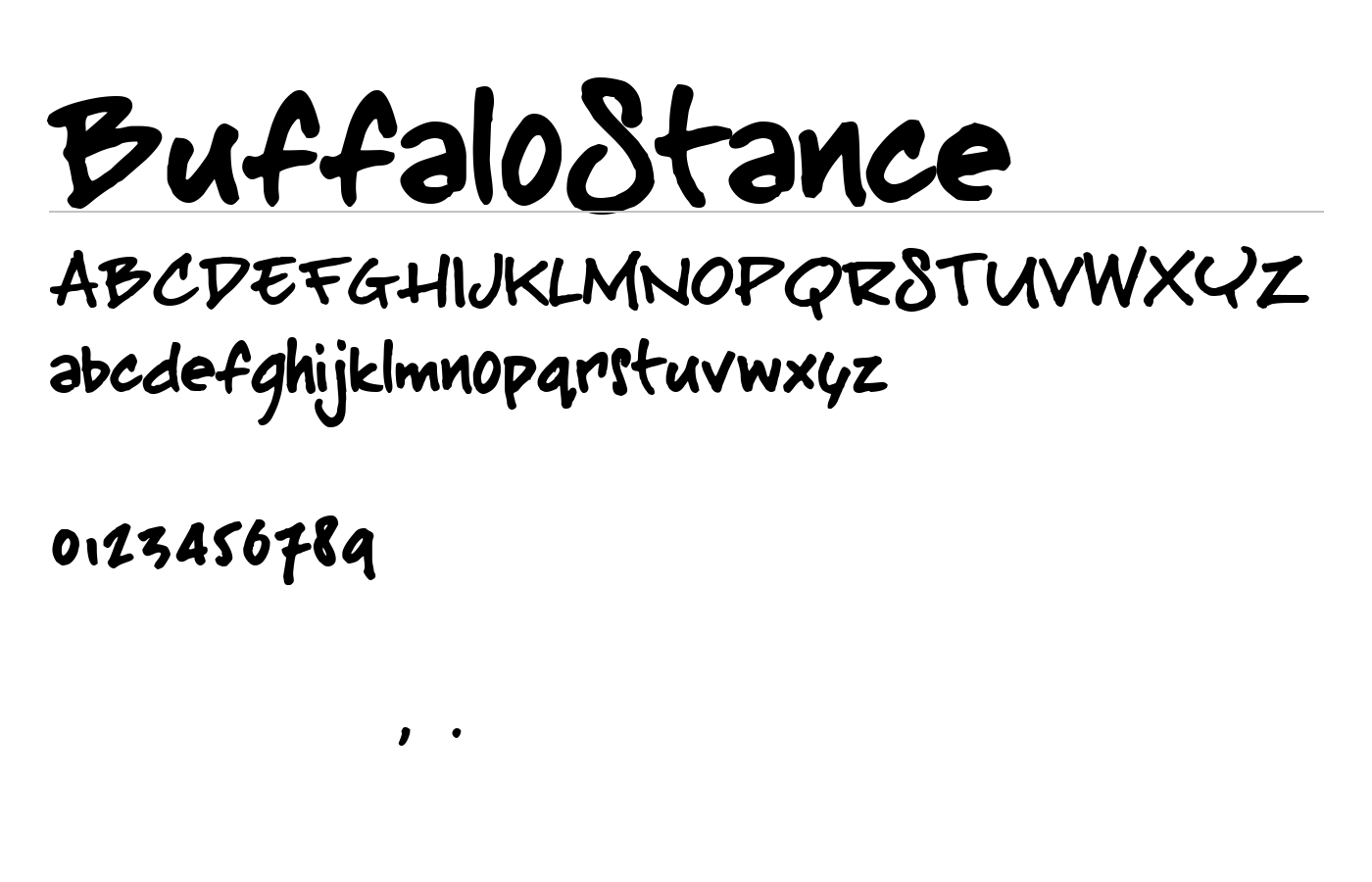
BuffaloStance is a bold, playful handwritten font with a casual and organic feel, featuring irregular strokes and varying thickness that add personality and warmth. Its energetic, slightly condensed letterforms make it ideal for creative, informal branding, posters, and headlines where a lively, approachable vibe is desired. This font works well to give designs a friendly, expressive touch while remaining easily readable.
BuffaloStance Font
About BuffaloStance Font
| Font family | BuffaloStance Font |
| Designer | J O E B O B graphics |